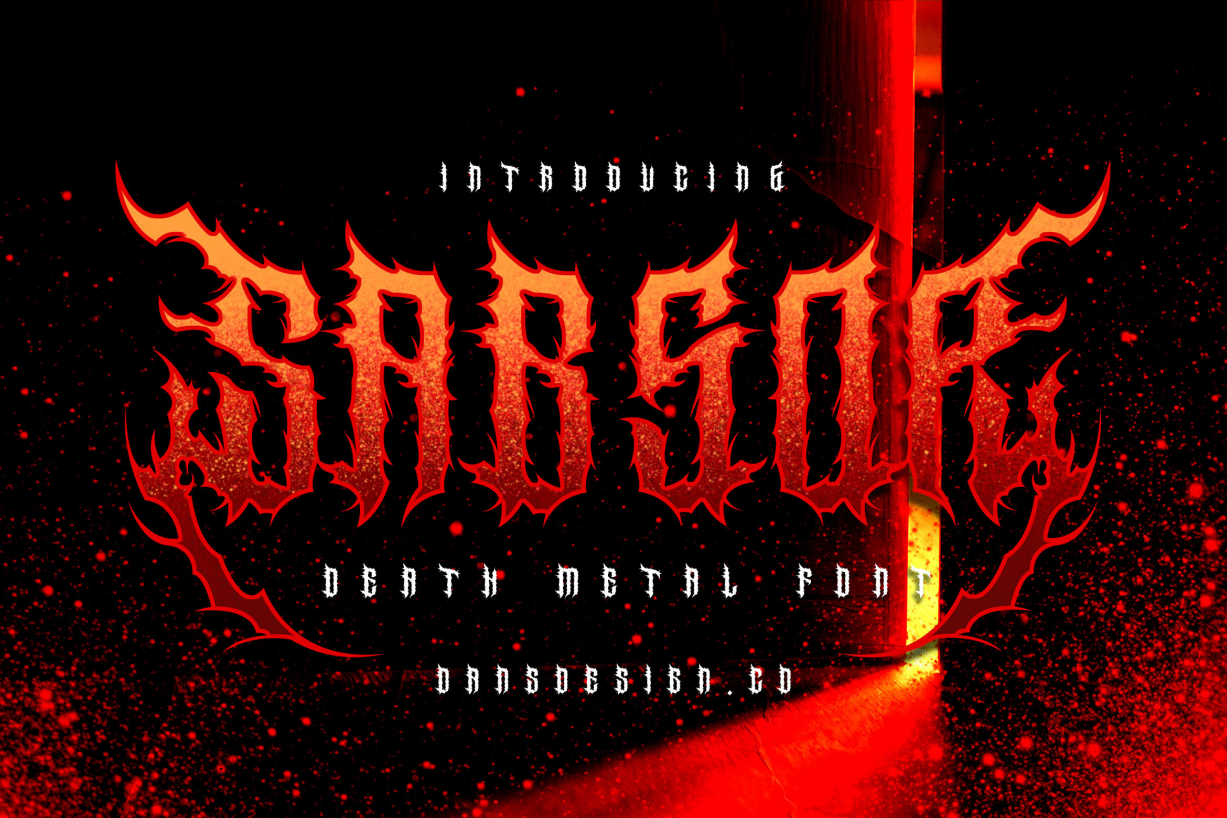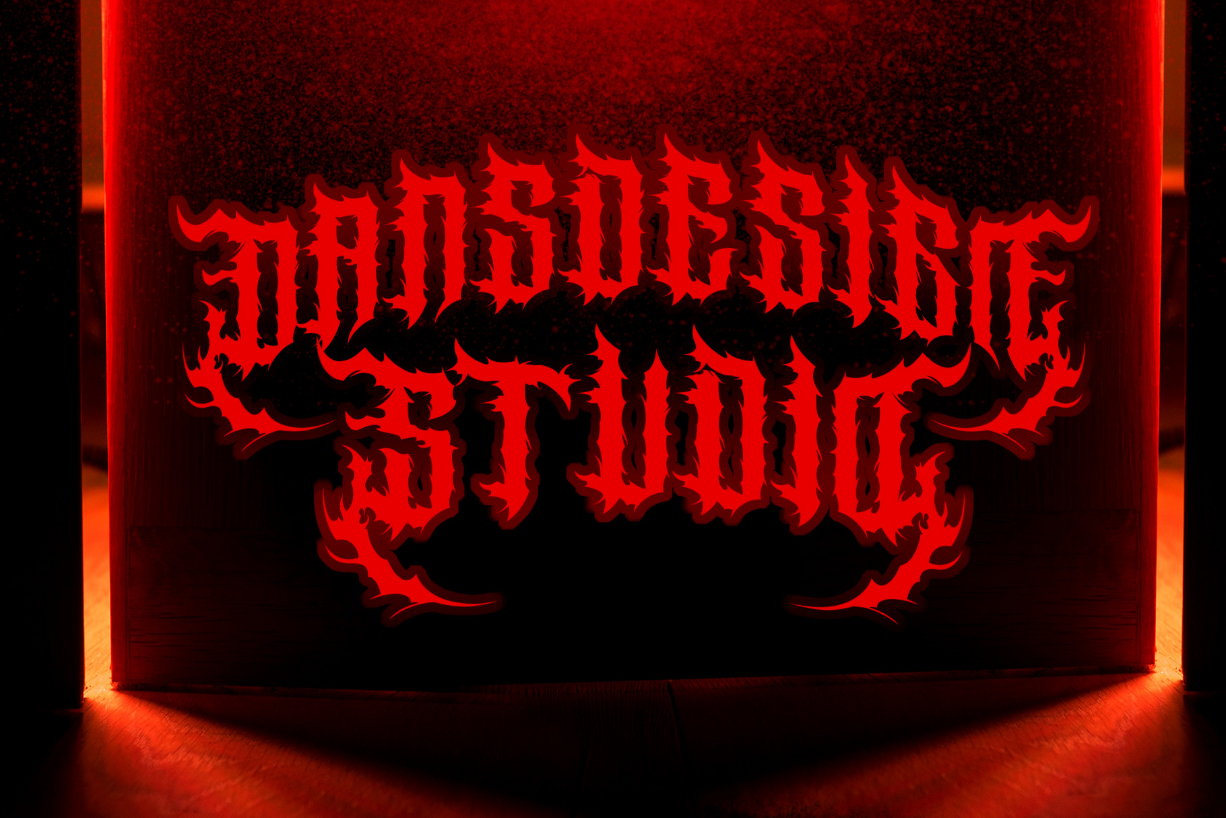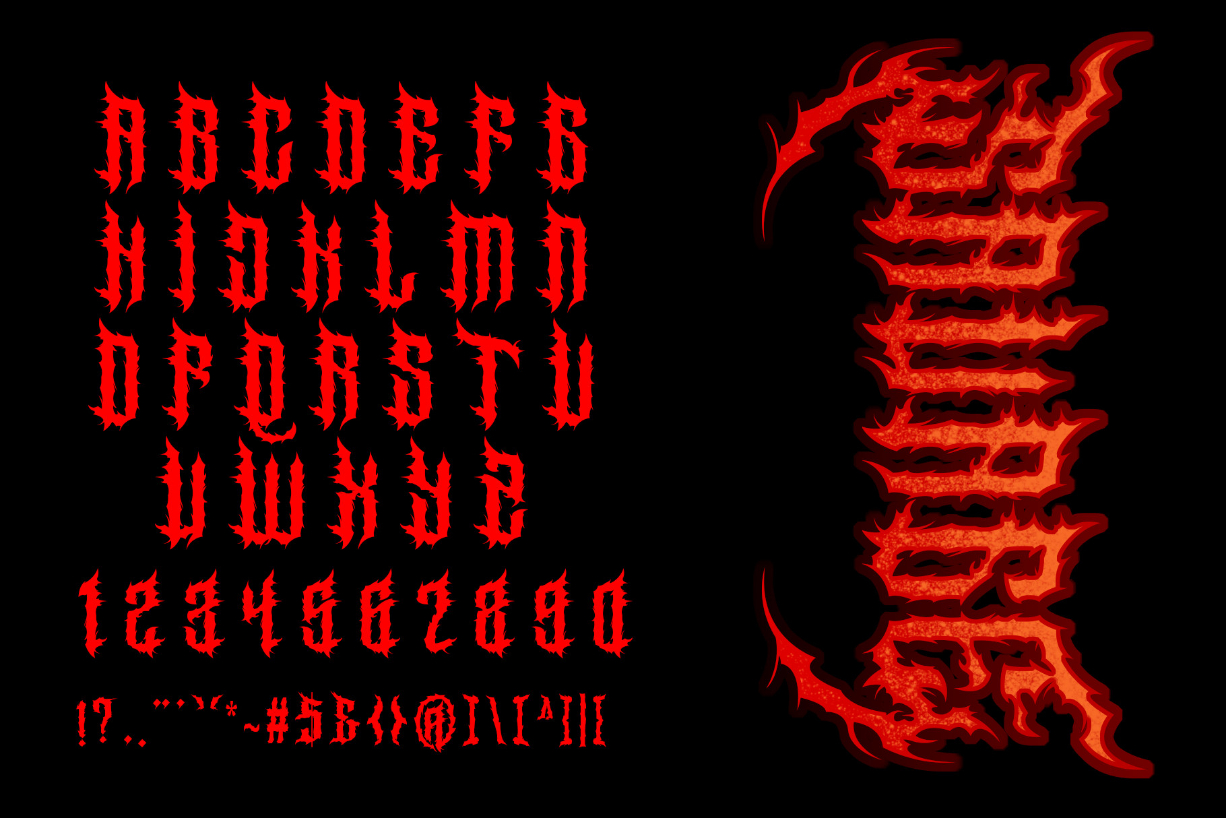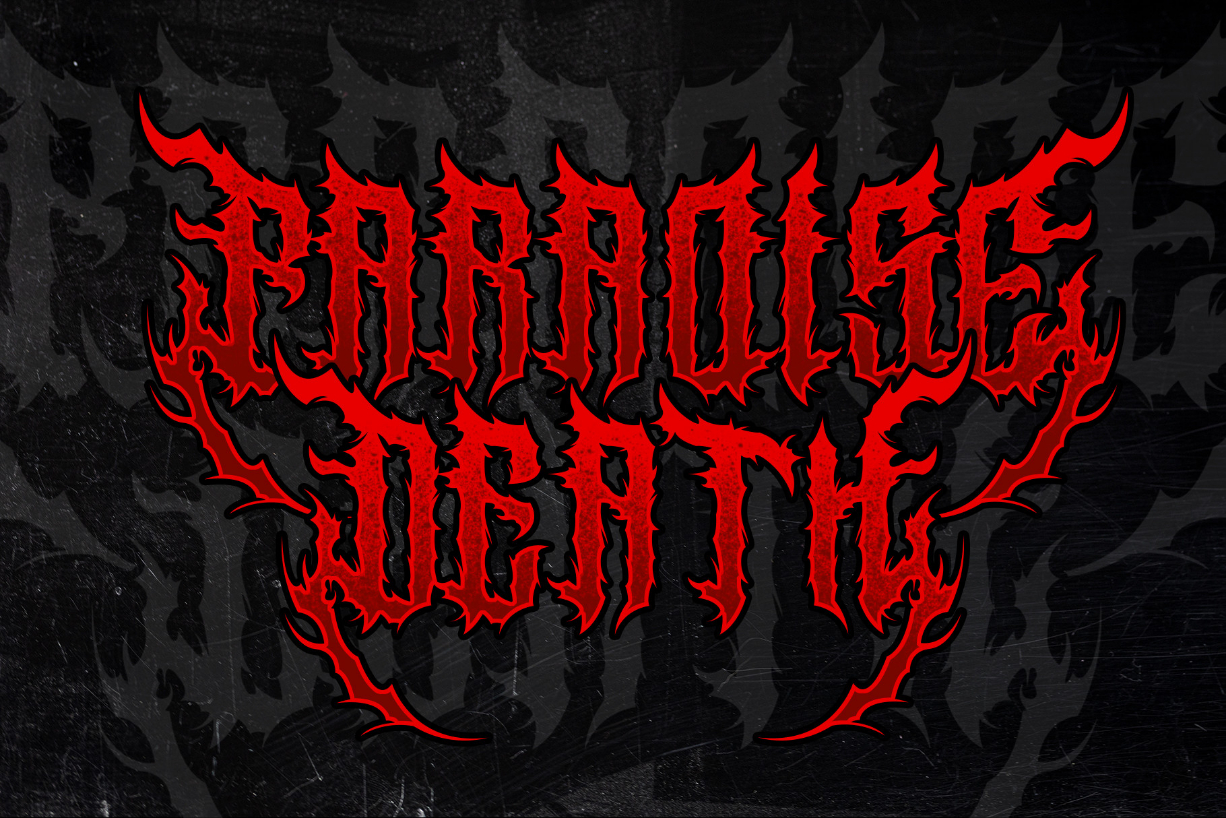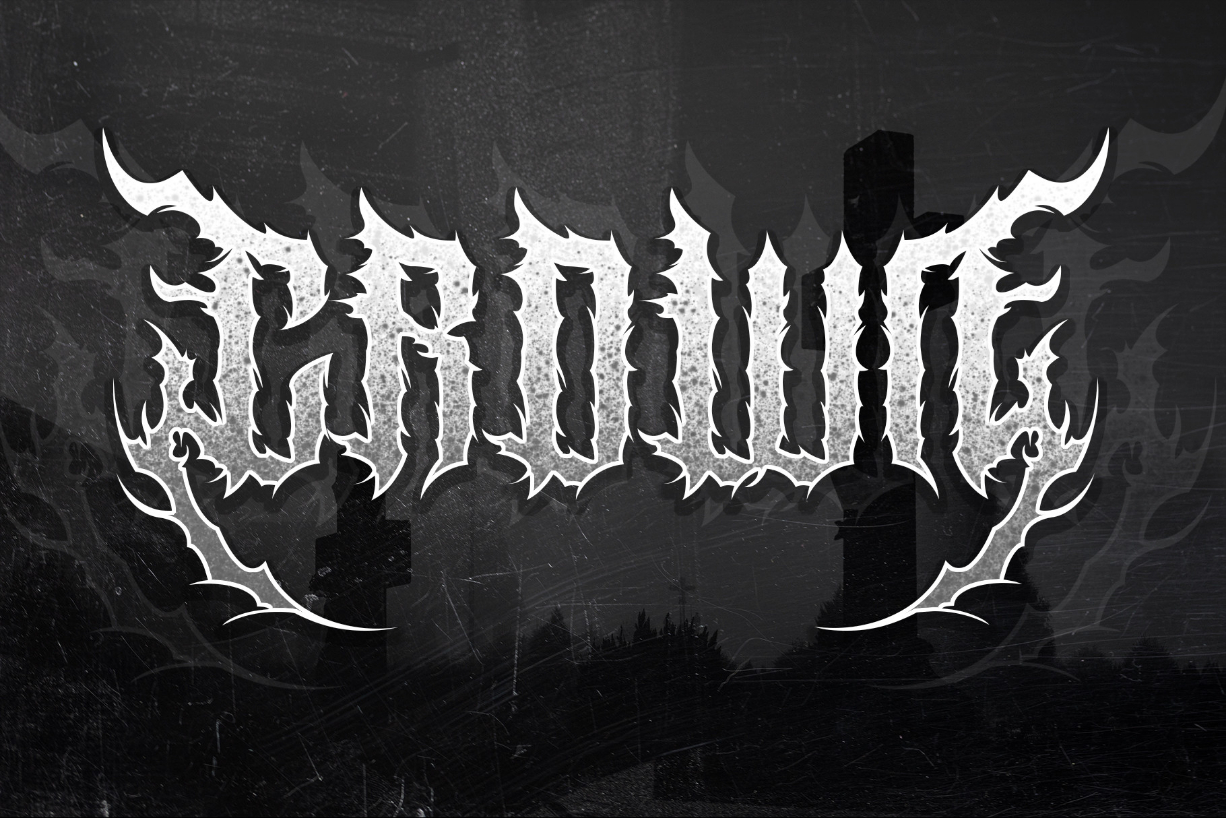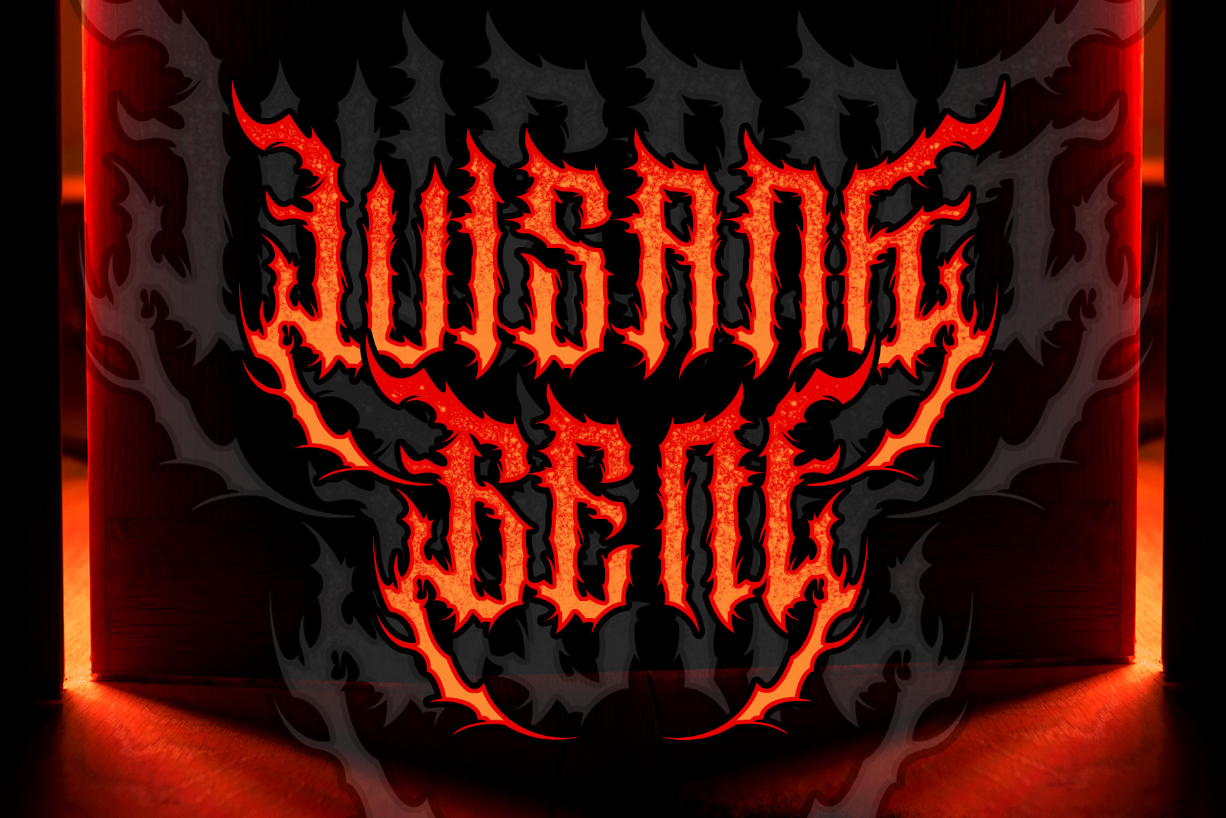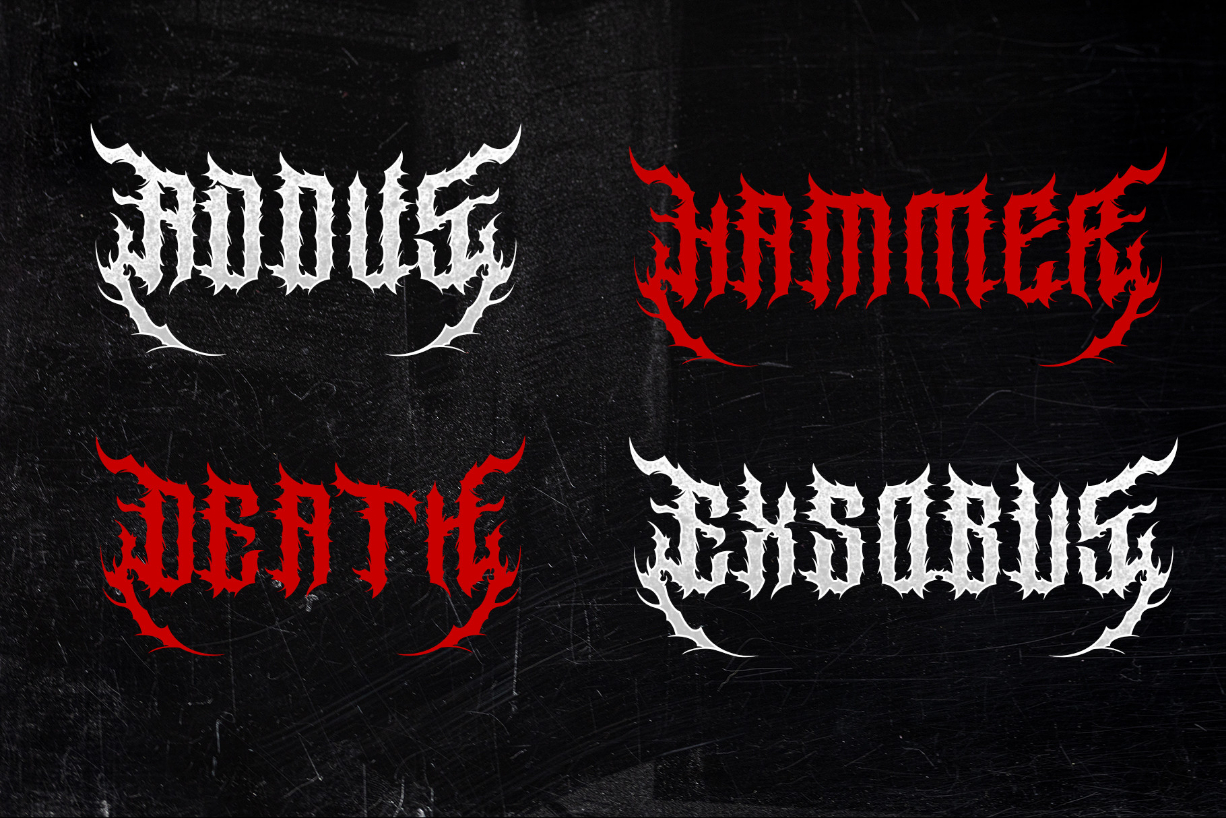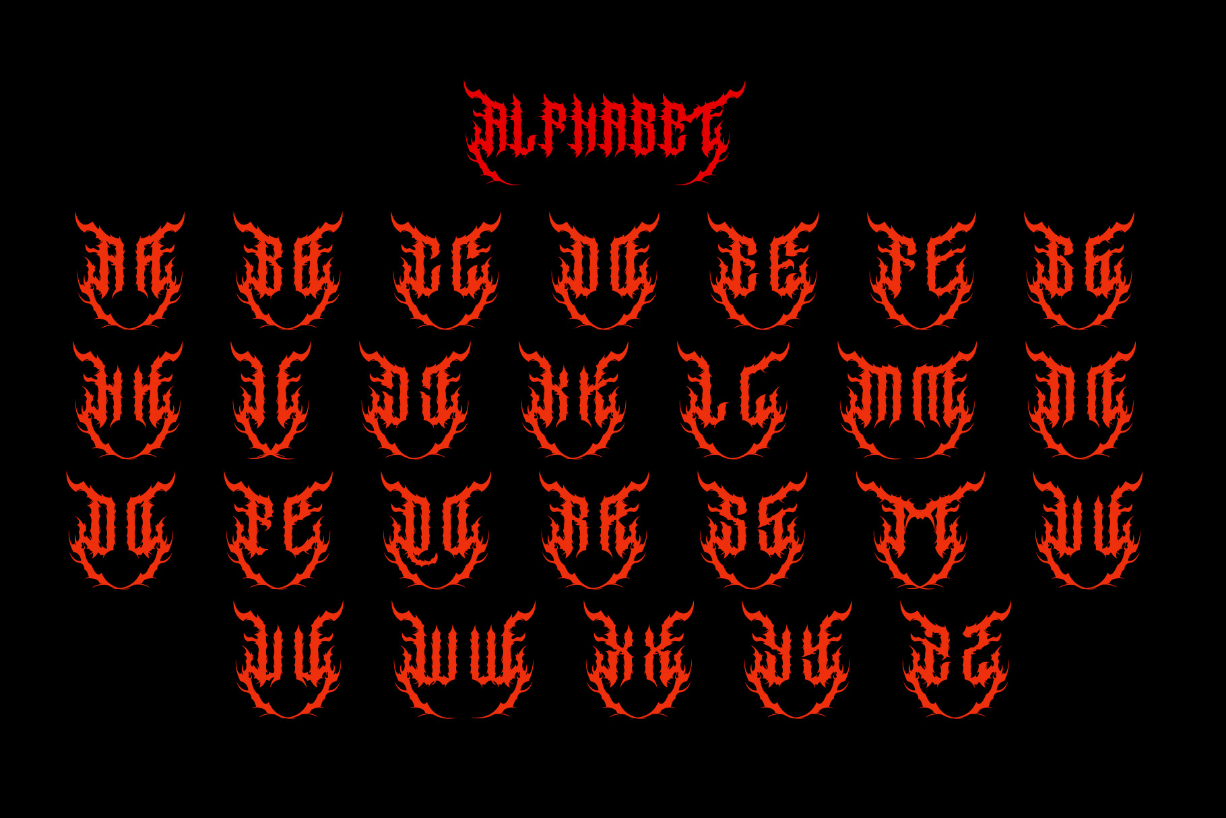
Sabsor Font
About Sabsor Font
SabsoR Metal Horror Modern Blackletter
SabsoR Metal Horror Font is a Gothic Metal blackletter font.
Use this strong and impressive typeface to add cool vibes to t-shirts, album covers, magazines, or anything that needs to stand out.